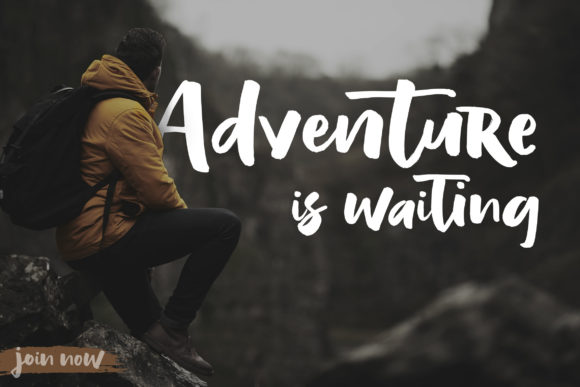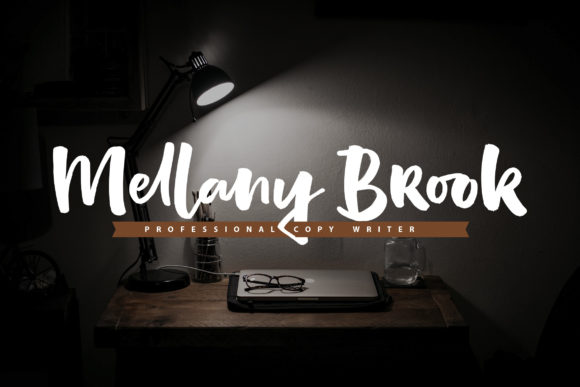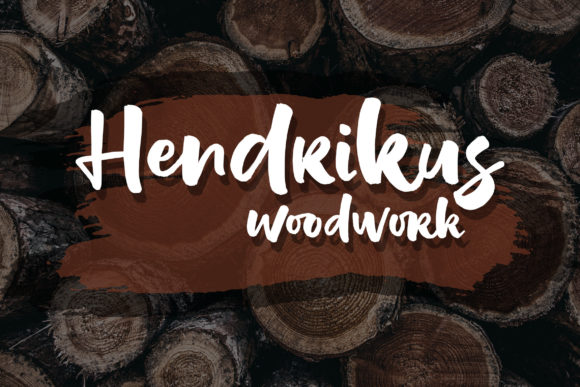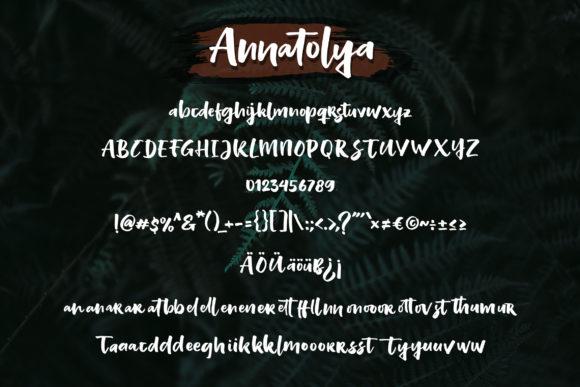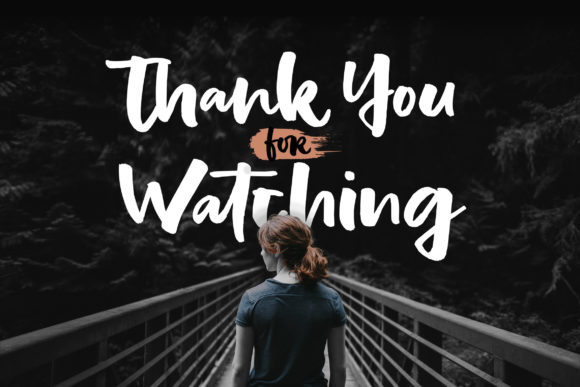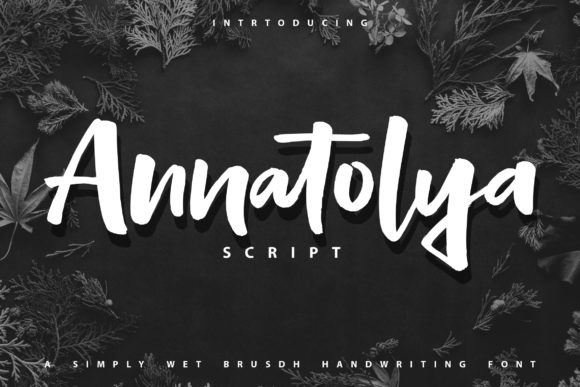
Introducing Annatolya Font: The Ultimate Handwritten Font for Designers and Crafters
Are you on the hunt for a trendy and chic handwritten font to elevate your designs? Look no further than Annatolya Font! This stunning font is not only visually appealing but also packed with features that make it a must-have for designers and crafters. In this article, we’ll dive into the world of Annatolya Font, exploring its unique characteristics, benefits, and endless possibilities.
What is Annatolya Font?
Annatolya Font is a beautiful, handwritten font that exudes elegance and sophistication. Its trendy and chic design makes it perfect for a wide range of design projects, from branding and advertising to packaging and digital media. Whether you’re a professional designer or a crafter, Annatolya Font is sure to inspire your creativity and take your designs to the next level.
PUA Encoding: Unlocking Endless Possibilities
One of the standout features of Annatolya Font is its PUA (Private Use Area) encoding. This means that you can access all glyphs and swashes with ease, giving you unparalleled flexibility and creative control. With PUA encoding, you can effortlessly swap out letters, add flourishes, and experiment with different combinations to create unique and eye-catching designs.
Benefits of Using Annatolya Font
So, what makes Annatolya Font so special? Here are just a few benefits of using this incredible font:
- Trendy and Chic Design: Annatolya Font boasts a modern and stylish design that’s perfect for brands and designers who want to make a statement.
- PUA Encoding: With PUA encoding, you can access a vast range of glyphs and swashes, giving you the freedom to experiment and create unique designs.
- Endless Possibilities: From branding and advertising to packaging and digital media, Annatolya Font can be used for a wide range of design projects.
Exploring the Endless Possibilities of Annatolya Font
So, what can you create with Annatolya Font? The possibilities are truly endless! Here are a few ideas to get you started:
- Branding and Logo Design: Use Annatolya Font to create stunning logos and brand identities that stand out from the crowd.
- Social Media Graphics: Create eye-catching social media graphics, from Facebook posts to Instagram stories, using Annatolya Font.
- Packaging Design: Add a touch of elegance to your packaging designs with Annatolya Font.
- Digital Media: Use Annatolya Font to create engaging digital media, such as e-books, blogs, and websites.
Tips and Tricks for Getting the Most Out of Annatolya Font
To help you get the most out of Annatolya Font, here are a few tips and tricks:
- Experiment with Different Glyphs and Swashes: Don’t be afraid to try out different glyphs and swashes to add some personality to your designs.
- Mix and Match with Other Fonts: Combine Annatolya Font with other fonts to create unique and interesting typography.
- Pay Attention to Kerning and Spacing: Make sure to adjust the kerning and spacing to ensure that your text looks professional and polished.